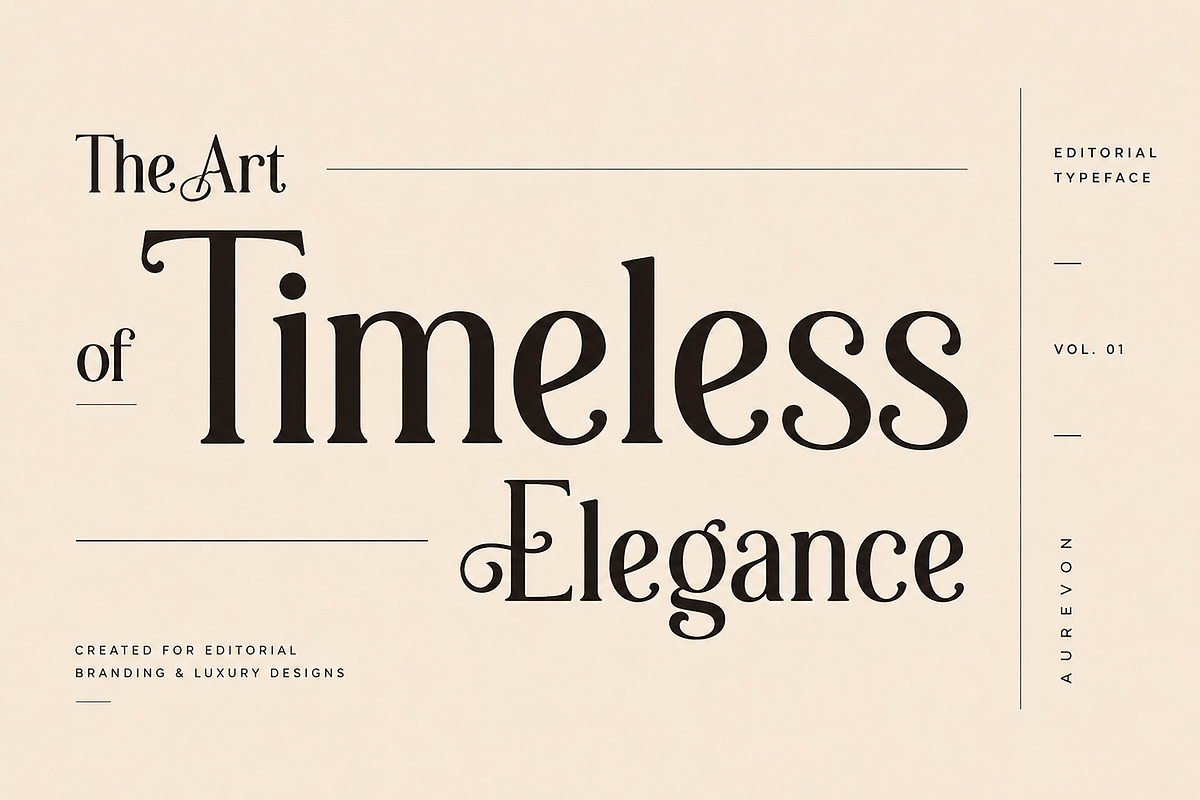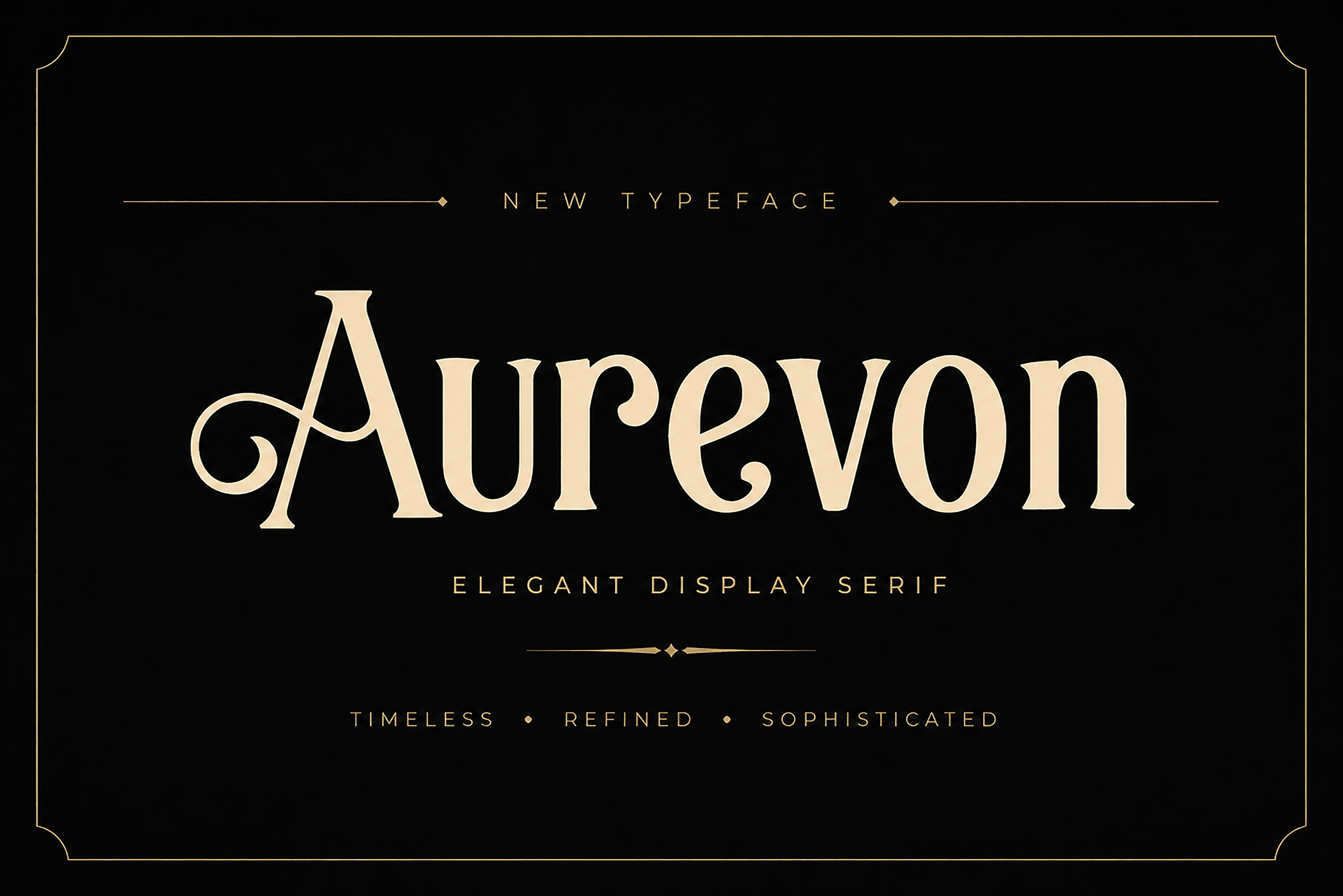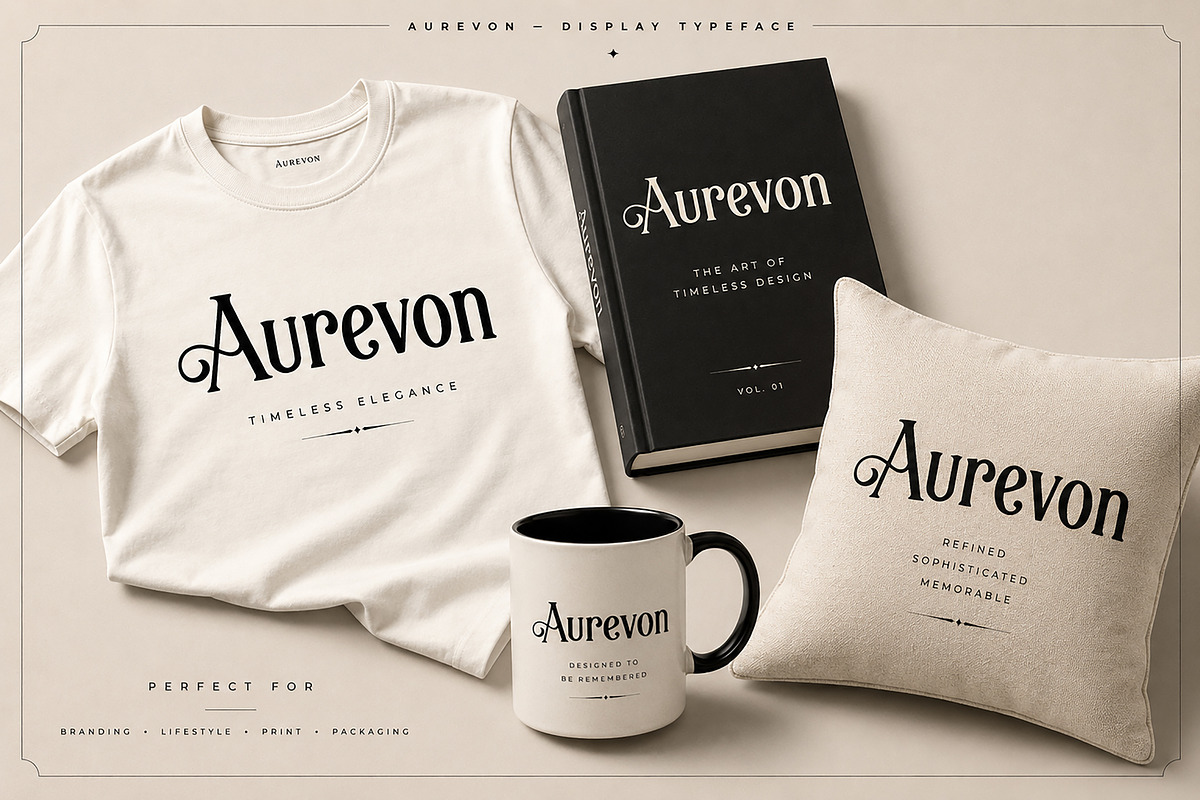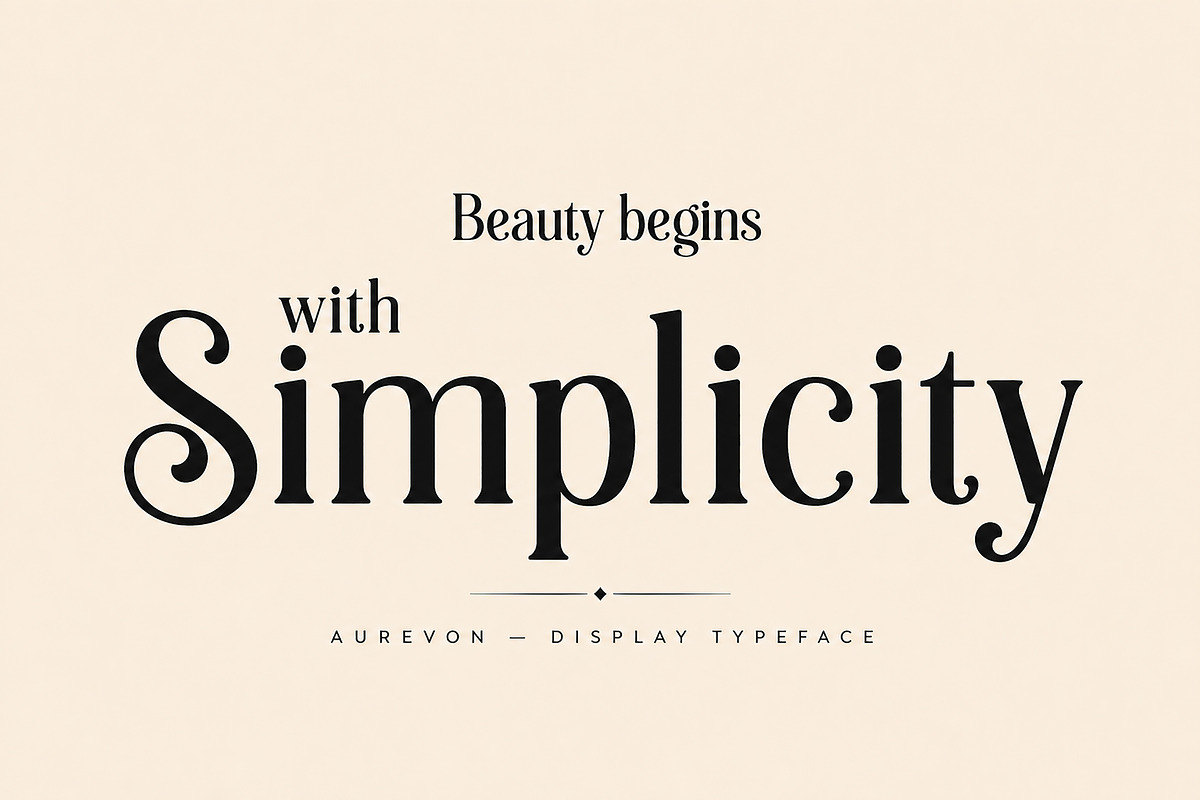
Aurevon – Elegant Serif Typeface
Aurevon – Elegant Display Serif Typeface
Aurevon is a refined display serif typeface crafted to bring timeless elegance and premium sophistication to your creative projects. Featuring graceful curves, high-contrast strokes, and beautifully balanced letterforms, Aurevon is designed to create striking headlines and memorable branding with effortless style.
Whether you're designing luxury logos, fashion editorials, wedding stationery, cosmetic packaging, or premium social media graphics, Aurevon adds a distinctive and elegant personality that instantly elevates your work.
Perfect for designers, creatives, and brands looking for a typeface that blends classic charm with modern refinement.
Luxury Branding
Fashion & Editorial Design
Logos & Wordmarks
Wedding Invitations
Beauty & Cosmetic Packaging
Perfume & Jewelry Branding
Magazine Headlines
Boutique & Lifestyle Brands
Posters
Premium Print Design
Elegant Display Serif
High-Contrast Letterforms
Clean & Refined Design
Premium Editorial Style
Perfect for Large Headlines
Professional Quality Typeface